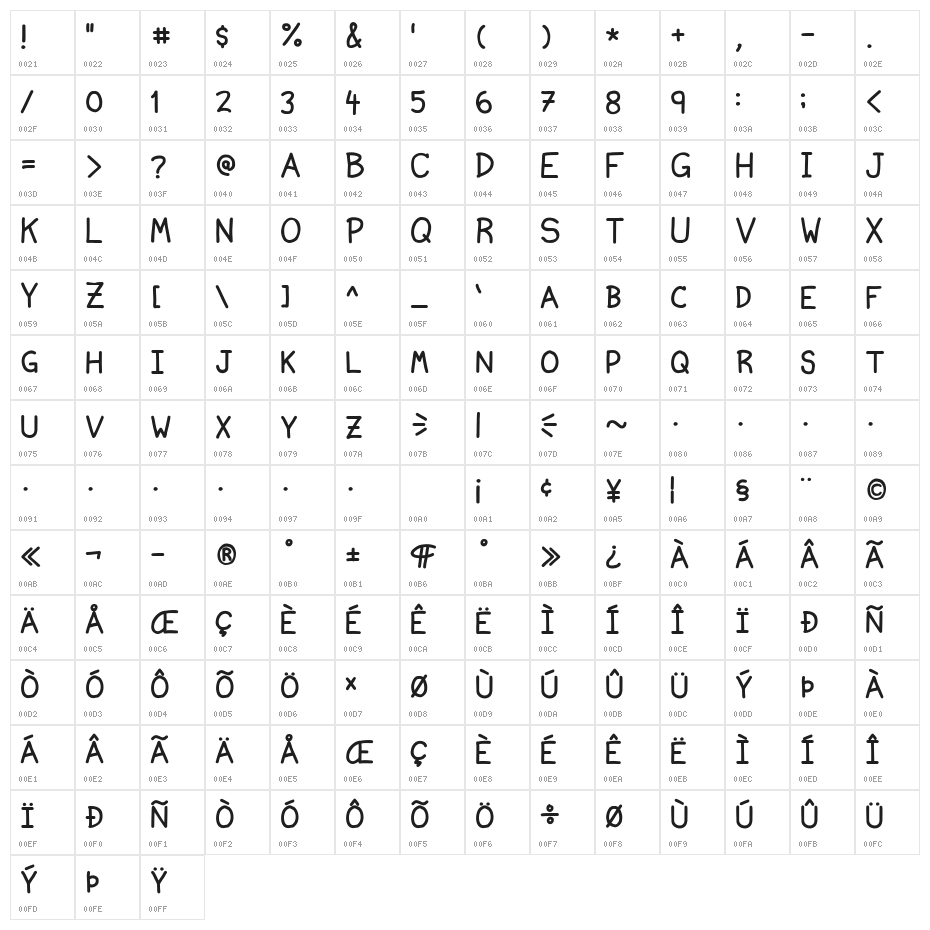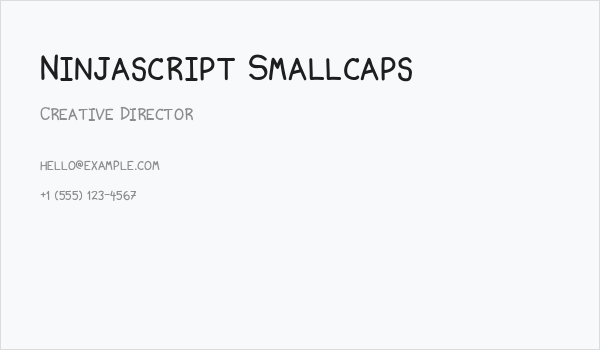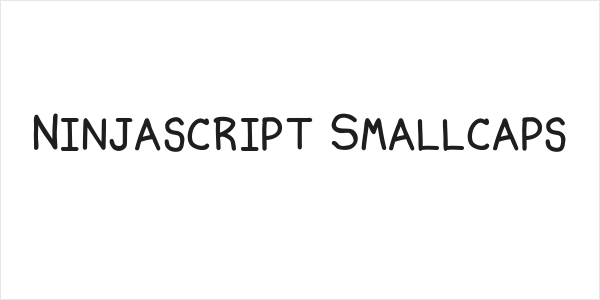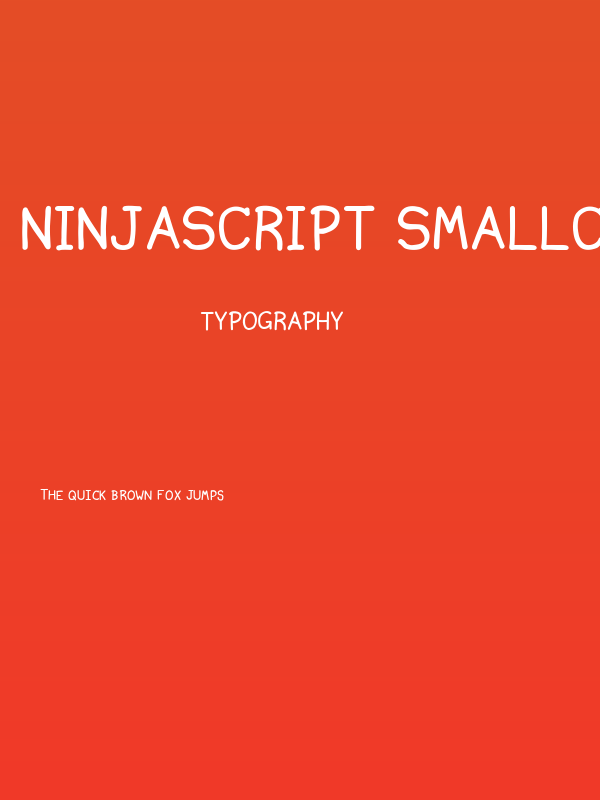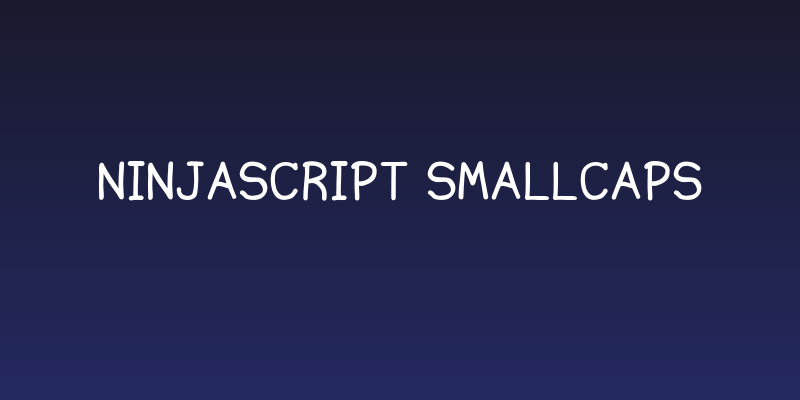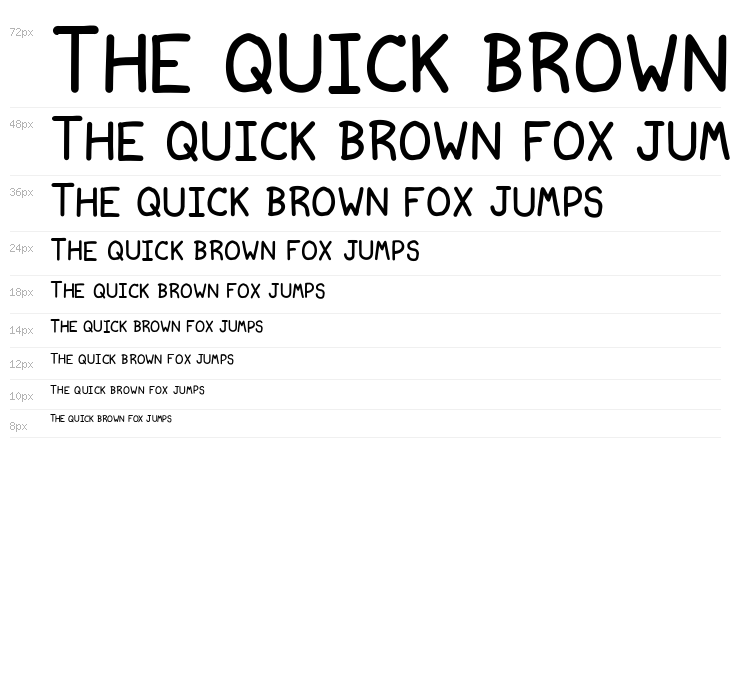
Ninjascript Smallcaps Font
Ninjascript Smallcaps Description
This font features a playful and informal style with rounded edges and a hand-drawn appearance. The characters are uniform in height, creating a cohesive look across both uppercase and lowercase letters. The strokes are consistent in width, giving the font a balanced and approachable feel. The numbers and special characters maintain the same whimsical style, making it suitable for creative and casual designs. The overall appearance is friendly and inviting, perfect for projects that require a personal touch.
| Proposed Projects | Ideal for children's books, greeting cards, casual branding, and playful posters. |